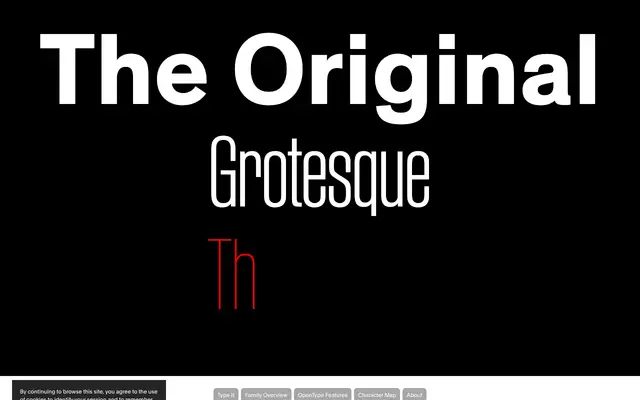
Theinhardt
François Rappo's grotesque revival named for Ferdinand Theinhardt, in nine weights with italics across six widths, plus Mono and Pan.
A milestone grotesque revival by François Rappo, drawn from his study of late-19th and early-20th-century sans-serif type. Named after Ferdinand Theinhardt, whose work shaped the genre, the family is composed of nine complementary weights with italics that hold their character at every step. The system extends across Compact, Condensed, SemiCondensed, standard, SemiExtended and Extended widths, plus a Mono companion and a Pan version for cross-script systems. Considered the original grotesque par excellence, Theinhardt is engineered for extensive modern usage.
Optimo describes Theinhardt as François Rappo's revival of late-19th and early-20th-century sans-serif typefaces, named after Ferdinand Theinhardt, with nine weights and italics plus Compact, Condensed, SemiExtended, Mono and Pan companions.